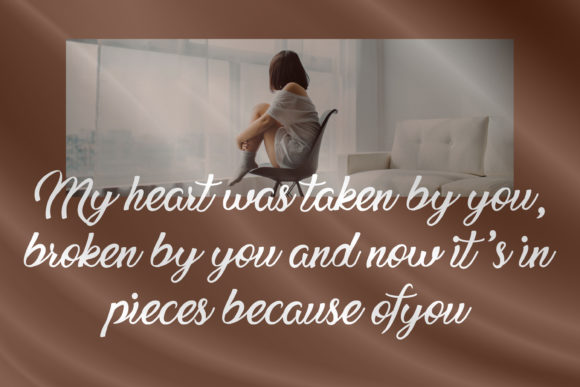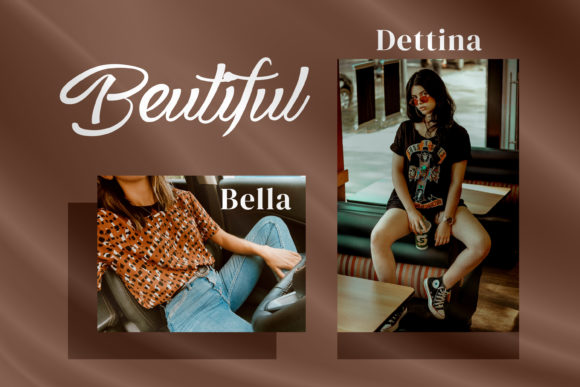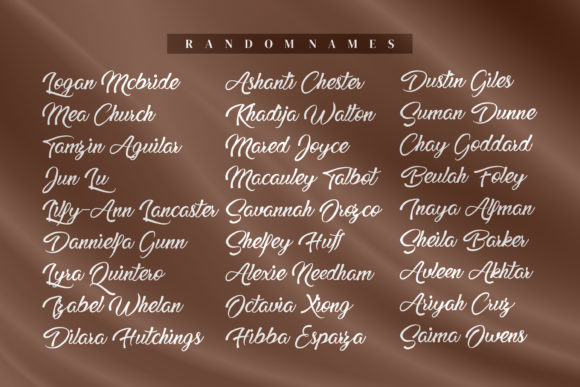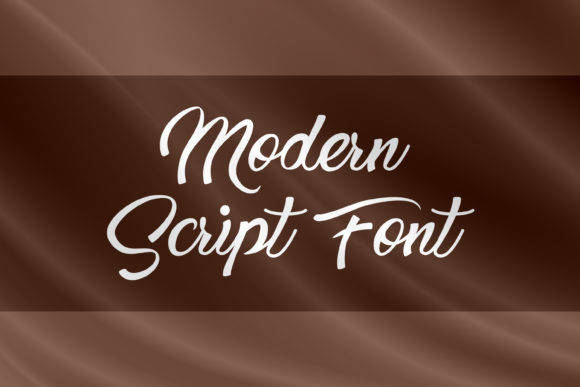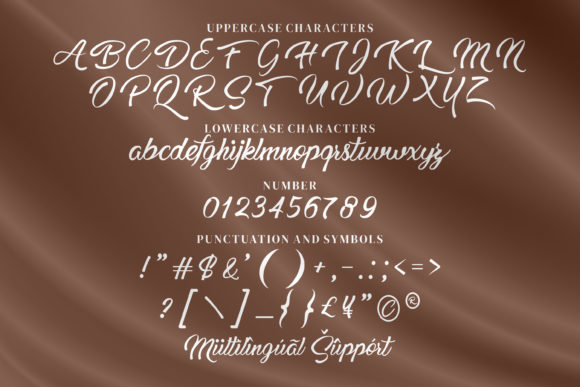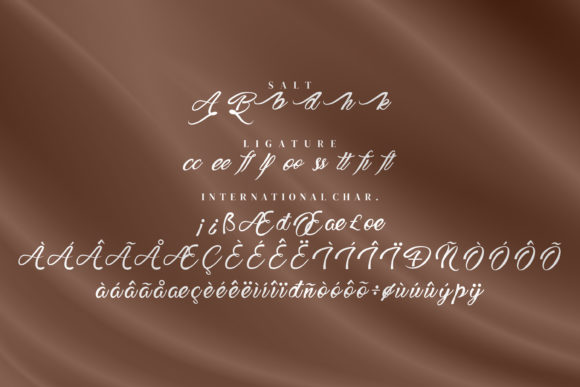
Dannieffa Stefania Font: Elevate Your Designs with Elegance and Sophistication
Are you searching for a font that exudes elegance, sophistication, and romance? Look no further than Dannieffa Stefania, a stunning script font that is sure to captivate your audience. With its thin lettering and graceful curves, this beautiful font is perfect for creating breathtaking wedding invitations, stunning stationary art, eye-catching social media posts, and so much more.
The Beauty of Dannieffa Stefania
Dannieffa Stefania is a masterclass in typography, boasting a unique blend of classic and modern elements. Its slender lines and delicate flourishes evoke a sense of refinement and luxury, making it an ideal choice for designs that require a touch of sophistication. Whether you’re creating invitations for a high-end wedding, crafting social media posts for a fashion brand, or designing stationery for a special occasion, Dannieffa Stefania is the perfect font to elevate your work.
One of the most exciting aspects of Dannieffa Stefania is its versatility. This gorgeous script font can be used in a wide range of design applications, including:
- Wedding Invitations: Create beautiful, one-of-a-kind wedding invitations that set the tone for an unforgettable celebration.
- Stationary Art: Add a touch of elegance to your stationery with Dannieffa Stefania’s delicate lines and flourishes.
- Social Media Posts: Make your social media posts stand out with this stunning script font, perfect for fashion brands, event planners, and more.
- Branding and Packaging: Use Dannieffa Stefania to create a cohesive brand identity that exudes luxury and sophistication.
Why Choose Dannieffa Stefania?
With so many fonts available, why choose Dannieffa Stefania? Here are just a few reasons why this stunning script font stands out from the rest:
- Unique and Exclusive: Dannieffa Stefania is a one-of-a-kind font that will set your designs apart from the crowd.
- Elegant and Sophisticated: This beautiful font exudes refinement and luxury, making it perfect for high-end designs.
- Highly Versatile: Dannieffa Stefania can be used in a wide range of design applications, from wedding invitations to social media posts.
- Easy to Read: Despite its delicate lines, Dannieffa Stefania is highly legible, making it perfect for designs that require a touch of elegance and sophistication.
Tips for Using Dannieffa Stefania
To get the most out of Dannieffa Stefania, here are a few tips to keep in mind:
- Pair with Bold Fonts: Combine Dannieffa Stefania with bold, modern fonts for a striking contrast that adds visual interest.
- Use on High-Quality Backgrounds: Showcase Dannieffa Stefania on high-quality backgrounds that complement its elegance and sophistication.
- Experiment with Colors: Try Dannieffa Stefania in a range of colors to find the perfect shade that complements your design.
Dannieffa Stefania is a truly exceptional script font that is sure to elevate your designs to new heights. With its thin lettering, graceful curves, and endless design possibilities, this stunning font is a must-have for designers and crafters looking to add a touch of elegance and sophistication to their work. So why wait? Fall in love with Dannieffa Stefania today and discover a world of design possibilities!